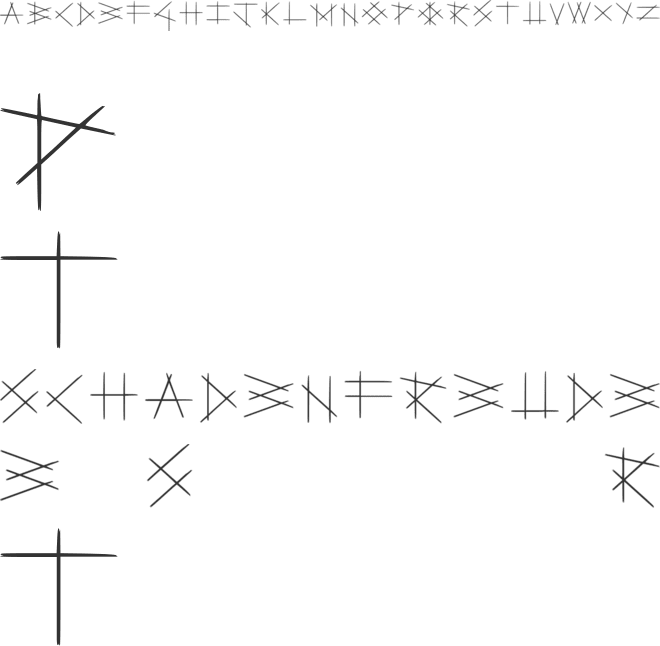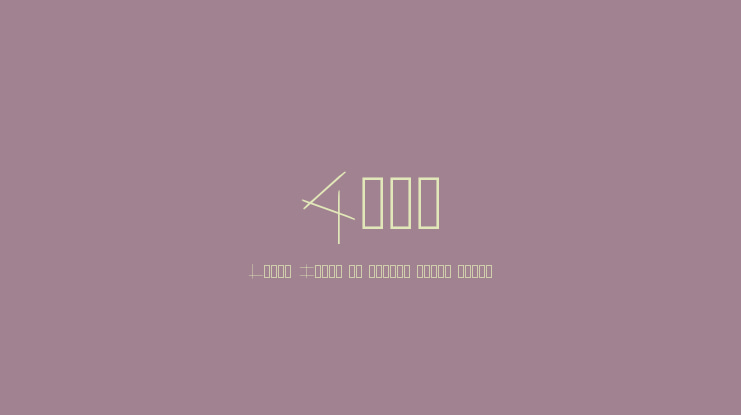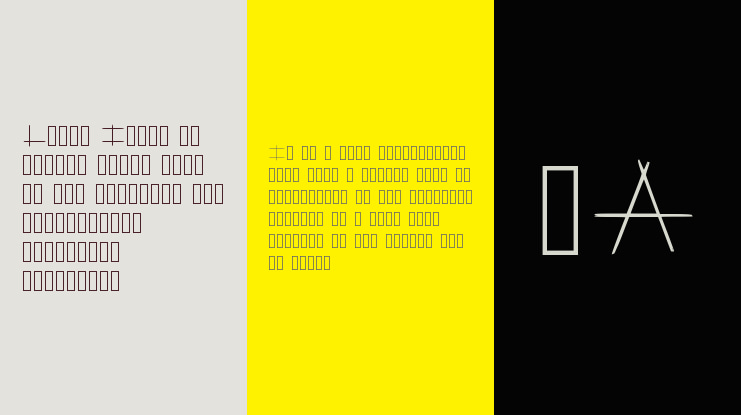
Gttw Font
Given to the wild is an embodiment of a childhood endeavor.
When I was a kid, I used to scribble text all the time.
This font style came to me naturally, without any influence.